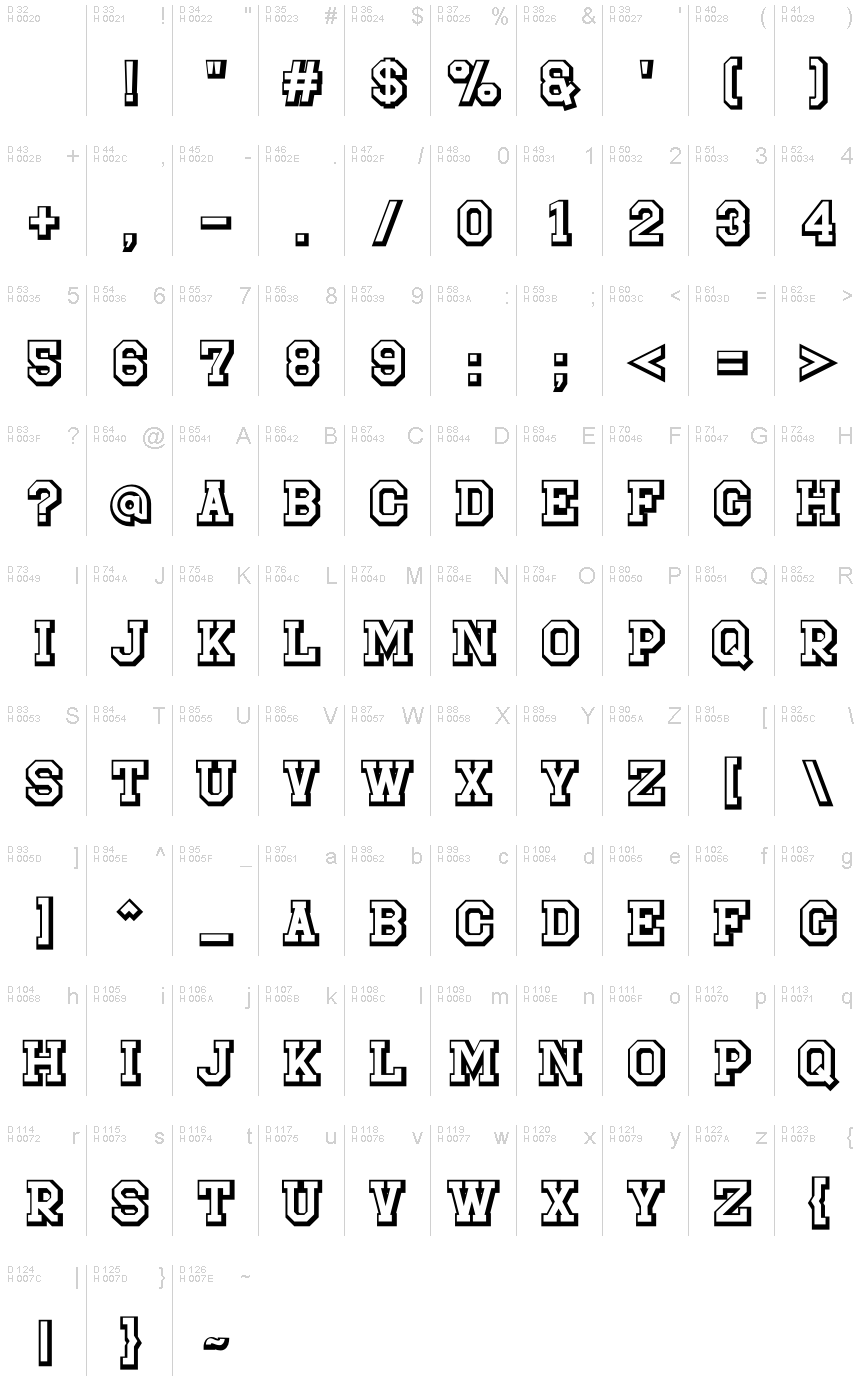
Sportfield Varsity Shadow
Sportfield Varsity Shadow font by Rvandtype reimagines athletic and collegiate lettering styles for all your major graphic design projects. Retro and dimensional, the display font effectively mimics major league sports-inspired apparel for a sharp old-school visual. The decorative style of the free display font adds instant character to everything from small-scale social media designs to large-scale print publications.
The font is perfectly suited for sports-themed projects that include event posters, flyers, tickets, wall murals, and event graphics. Choose it to instantly upgrade athletic logotypes or match it with numerical elements on jerseys and baseball caps. Use Sportfield Varsity Shadow on its own or combine it with compatible fonts that enhance its already powerful aesthetic.